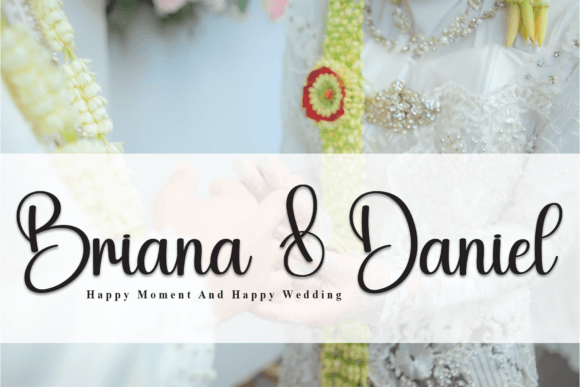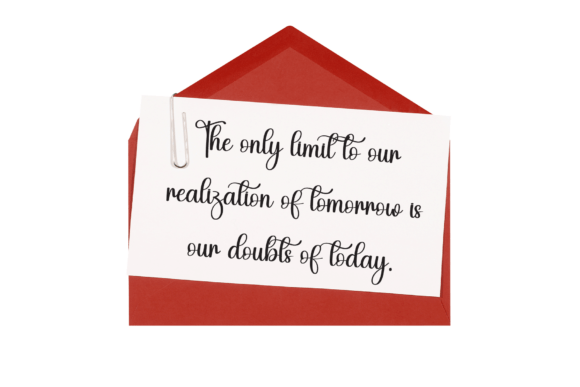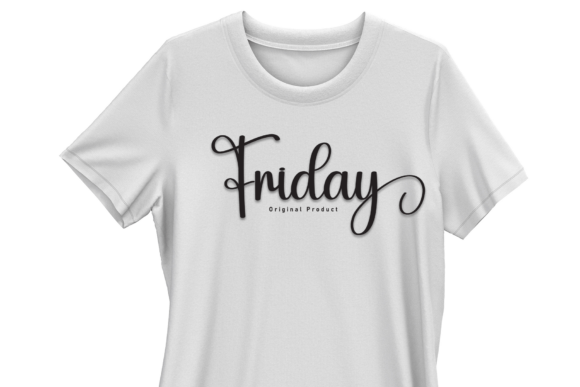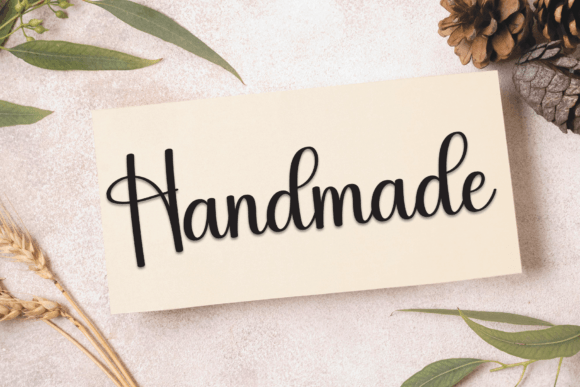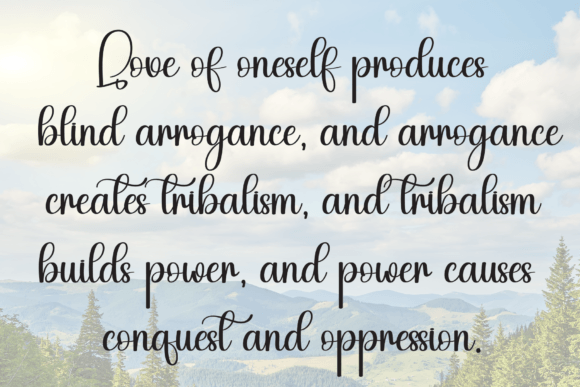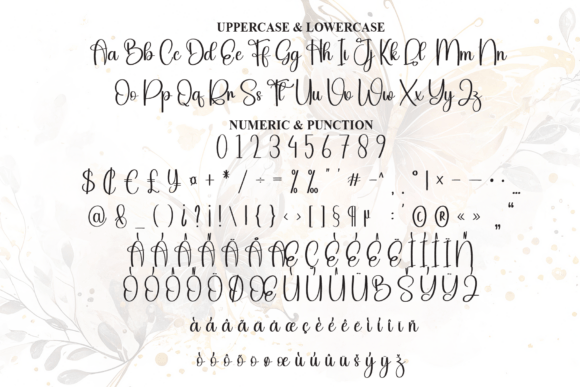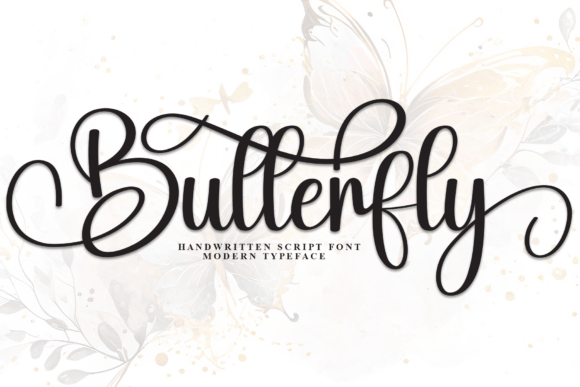
The Magic of Butterfly Font: Elevating Your Designs with Elegance
I’ll never forget the time I was working on a wedding invitation project, and my client asked for a font that would make their special day feel like a fairytale. I scoured the internet, trying out font after font, but nothing seemed quite right. That was until I stumbled upon the Butterfly Font. Its smooth, elegant curves and delicate lines instantly captured the essence of what my client was looking for. In that moment, I knew I had found the perfect fit. ✨
A Personal Review of Butterfly Font
• ✨ Smooth and elegant flow: The Butterfly Font glides effortlessly across the page, making it perfect for creating beautiful, flowing text.
• ✅ Perfect for invitations and greeting cards: The font’s stylish curves and delicate lines make it ideal for adding a touch of charm and sophistication to any design.
• 💫 Personal and artistic feel: The Butterfly Font adds a unique, handcrafted touch to your words, making them stand out beautifully.
While the Butterfly Font is a stunning addition to any design, there are a few things to keep in mind. 🤔
• ⚠️ Limited use in very small sizes: Due to its intricate details, the font may not be the best choice for very small text sizes.
• ⚠️ Requires careful pairing with other fonts: The Butterfly Font’s unique style means it can be a bit tricky to pair with other fonts. Be sure to choose complementary fonts that won’t overpower it.
3. Experiment with OpenType features like stylistic alternates and glyphs to add more personality to your text.
3. Take advantage of OpenType features like swashes and ligatures to add more flair to your text.
The Butterfly Font was designed by a talented typographer who wanted to create a font that would evoke the feeling of elegance and sophistication. Inspired by the delicate curves of butterfly wings, the font’s creator aimed to craft a font that would add a touch of charm and whimsy to any design. 🌹
Q: What is the best way to use Butterfly Font in my designs?
A: The Butterfly Font is perfect for invitations, greeting cards, and any design that needs a touch of elegance and sophistication. Try pairing it with complementary fonts and using OpenType features to add more personality to your text.
Q: Is Butterfly Font suitable for body text?
A: While the Butterfly Font is stunning, it’s best used for headings and titles. Its intricate details and flowing curves make it less suitable for long blocks of body text.